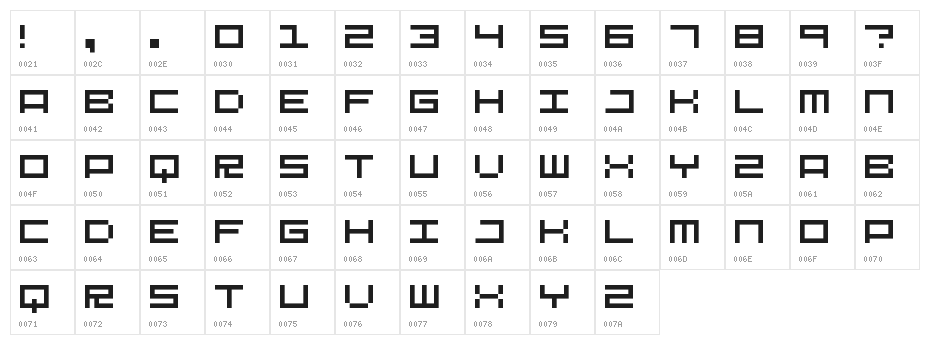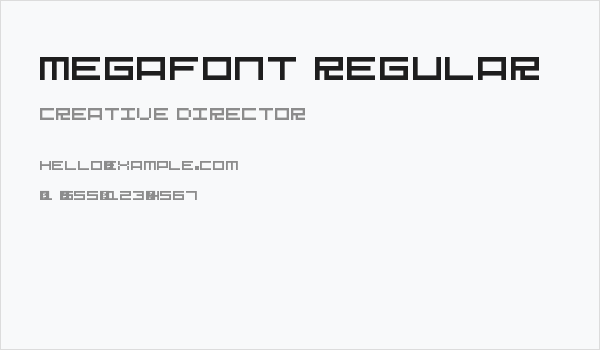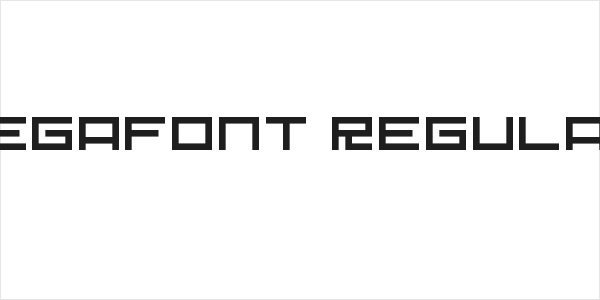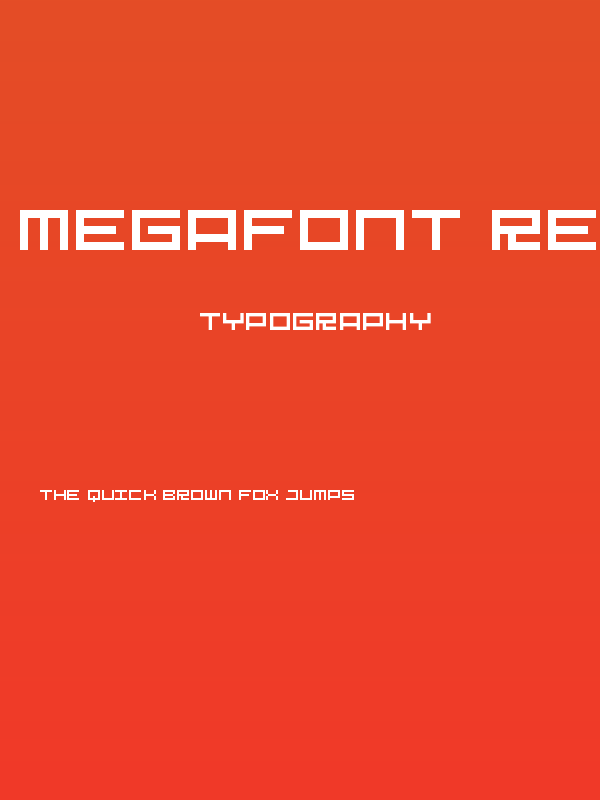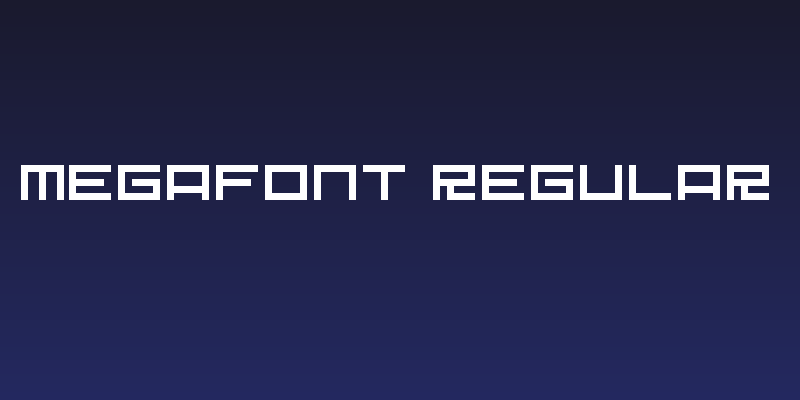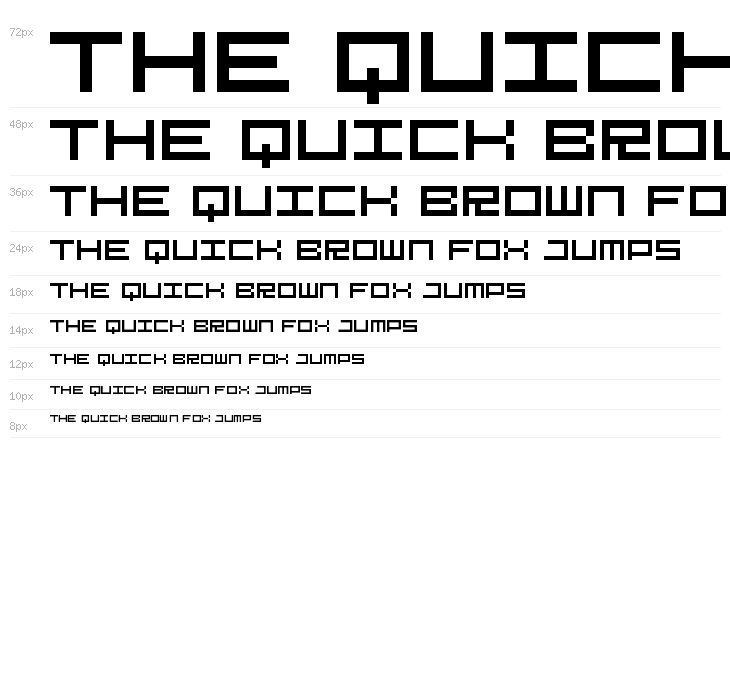
Megafont Regular Font
Megafont Regular Description
This font features a bold, geometric design with a distinctly digital aesthetic. Each character is constructed with a series of straight lines and right angles, giving it a blocky, pixelated appearance reminiscent of early computer graphics. The uniformity in line thickness across all characters contributes to a cohesive and structured look. The uppercase and lowercase letters maintain a consistent height, enhancing the font's modern and minimalist style. The numerals and special characters follow the same design principles, ensuring visual harmony throughout. This font's unique style makes it ideal for projects that require a futuristic or tech-inspired theme.